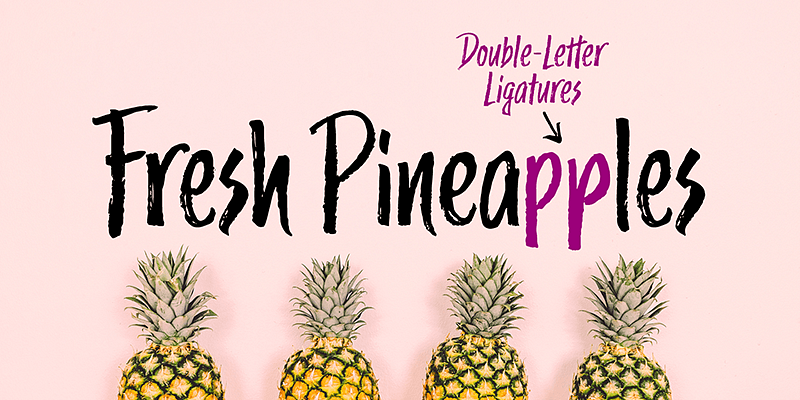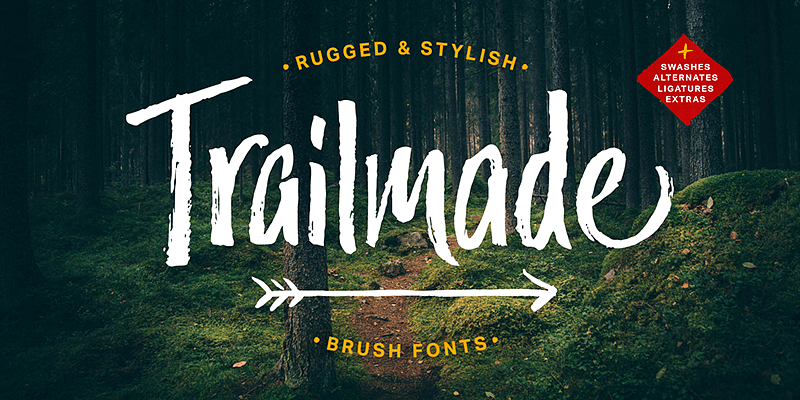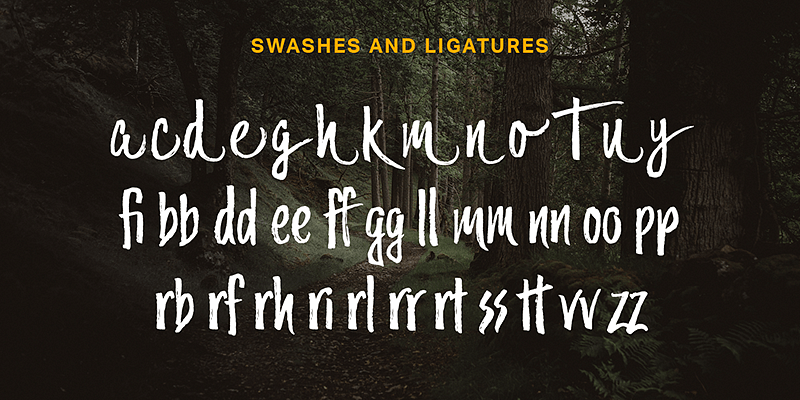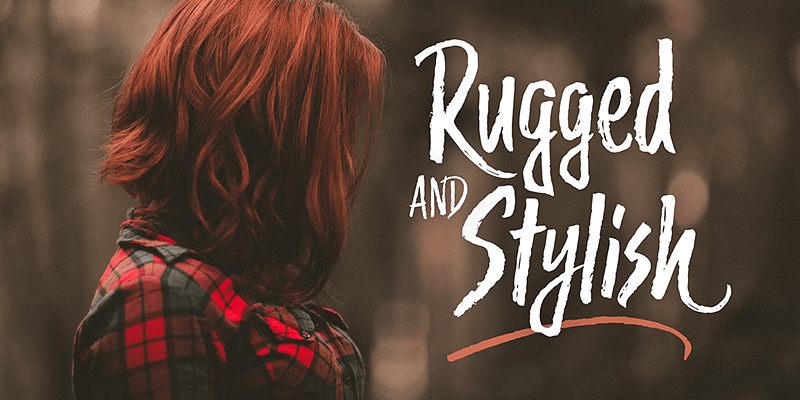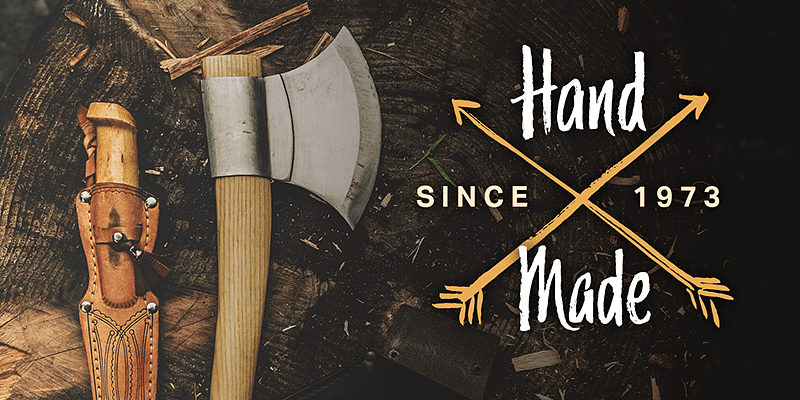
Trailmade is a rugged, confident, and stylish brush font. Hand-lettered with a brush pen on paper, it includes swashes, ligatures, and lowercase alternates for a more authentic feel.
With an emphasis on typefaces designed to be useful and unique, Adam Ladd crafts fonts with a diverse appeal that ranges across modern and vintage aesthetics in sans serif, serif, and script styles. His experience as art director at two of the most revered design publications — HOW and PRINT magazines — informs his work as a type designer. Individuals and large companies in many industries have licensed his fonts, including Disney, Whole Foods, Blizzard Entertainment, and Penguin Random House.